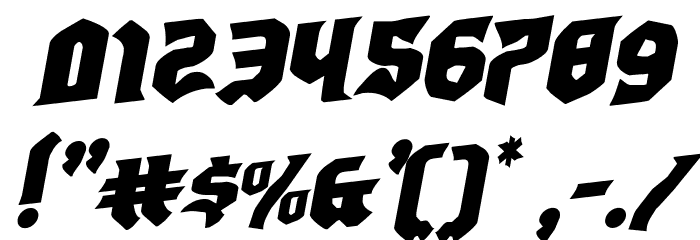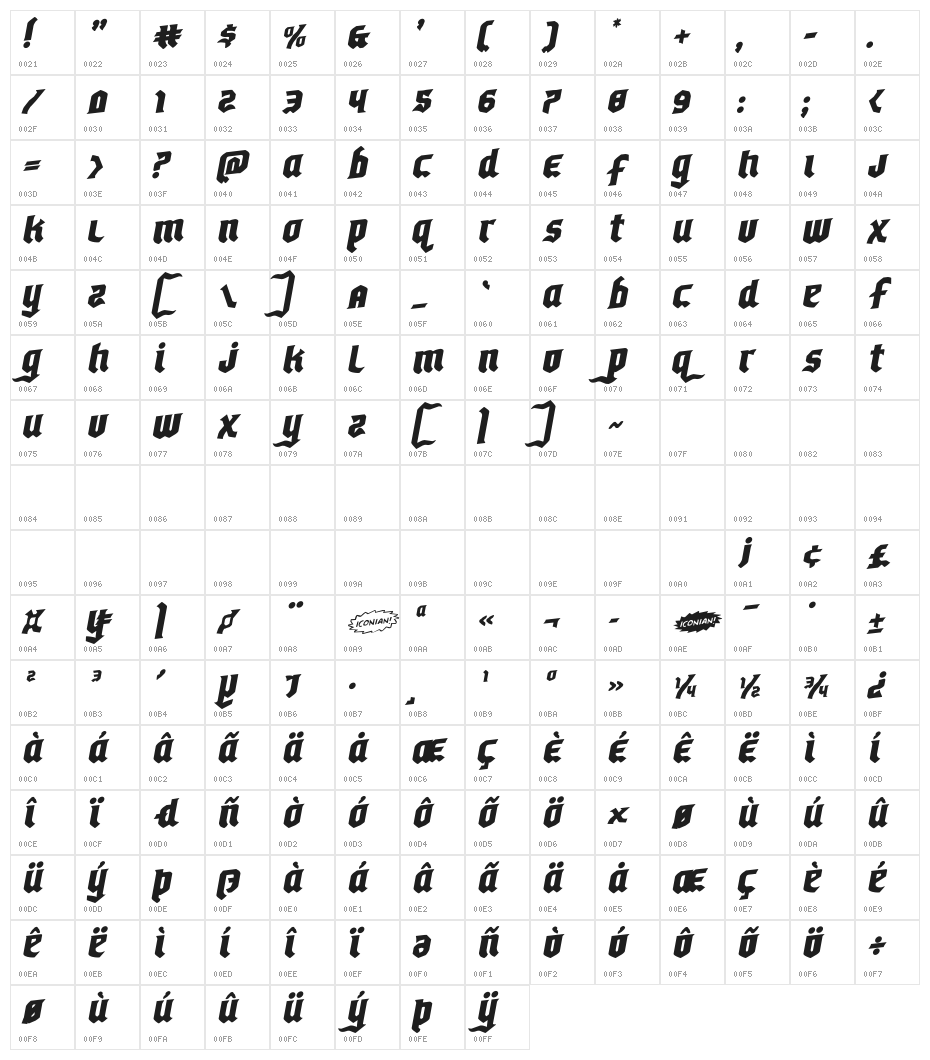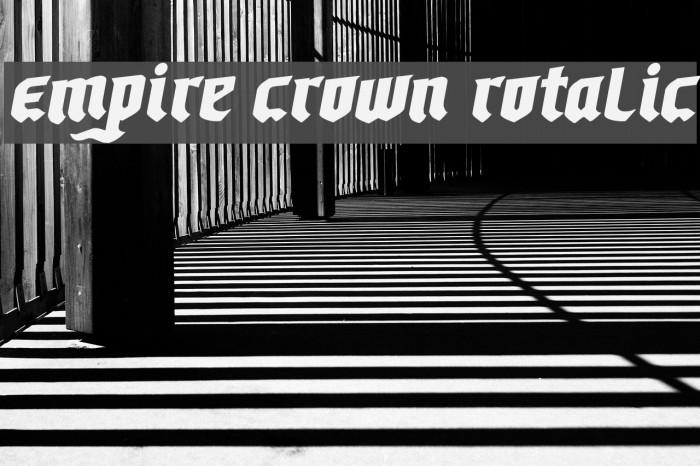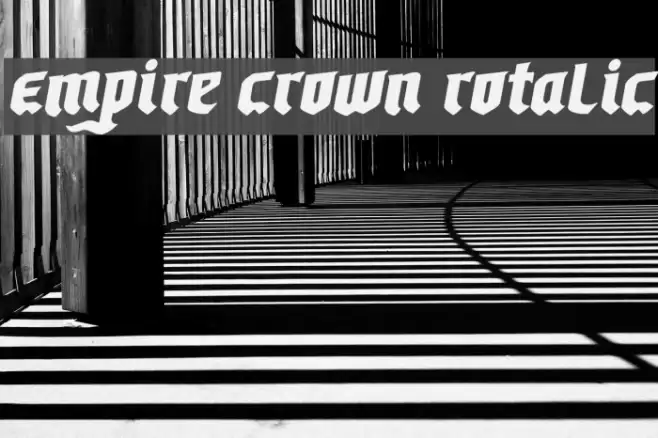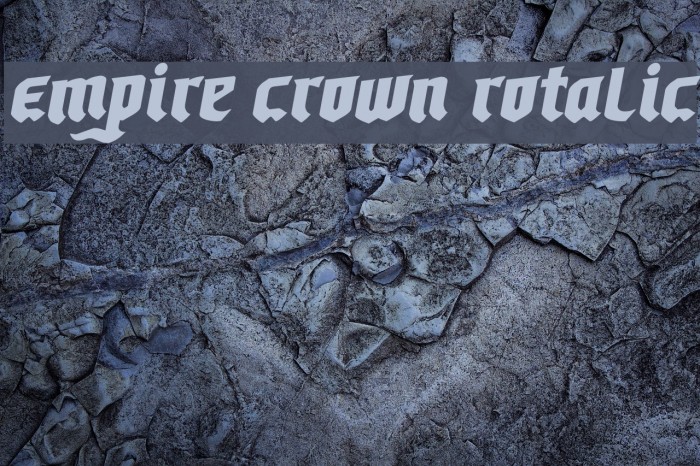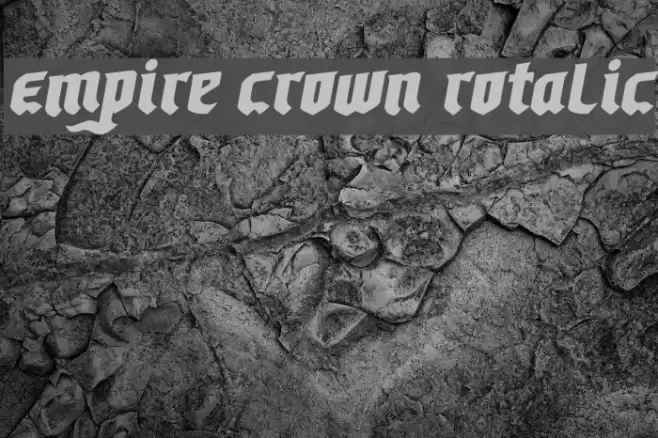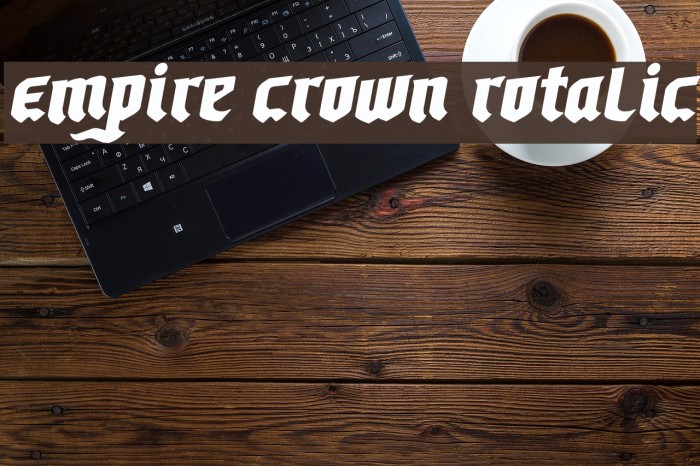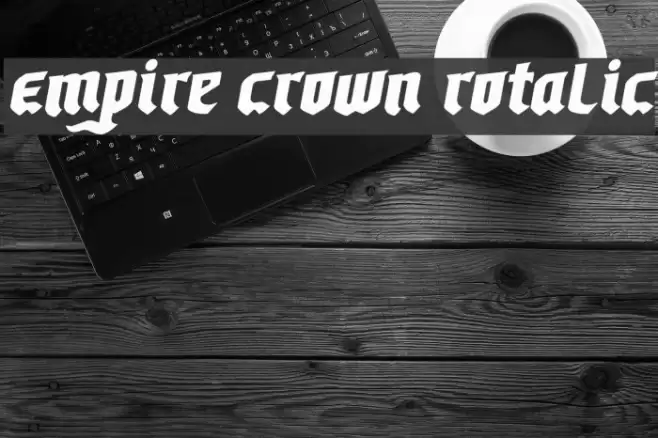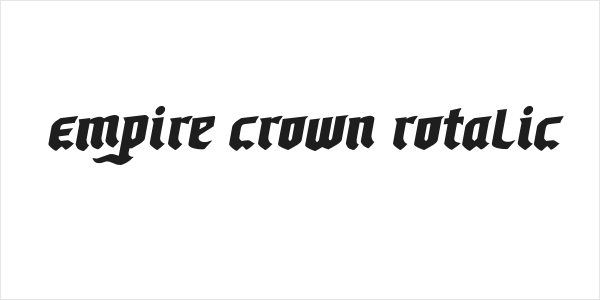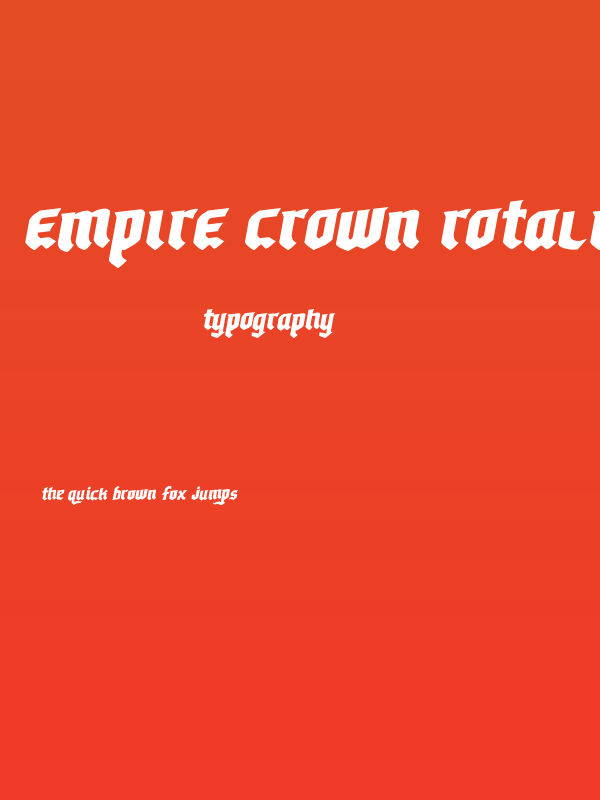
Empire Crown Rotalic Font
Empire Crown Rotalic Description
This font features a bold and dynamic style with sharp, angular edges and a distinct slant, giving it a sense of motion and energy. The characters are designed with a strong emphasis on geometric shapes, creating a striking and impactful appearance. The uppercase and lowercase letters maintain a consistent style, with the lowercase letters mirroring the uppercase in form but with a slightly more compact structure. The numerals are equally bold and angular, ensuring they stand out prominently. Special characters are crafted with the same attention to detail, maintaining the overall aesthetic of the font. This design is reminiscent of medieval or gothic influences, yet it carries a modern twist that makes it versatile for various applications.
| Overall Style | Modern Gothic |
| Proposed Projects | Ideal for branding, posters, album covers, and any project requiring a bold, eye-catching typeface. |